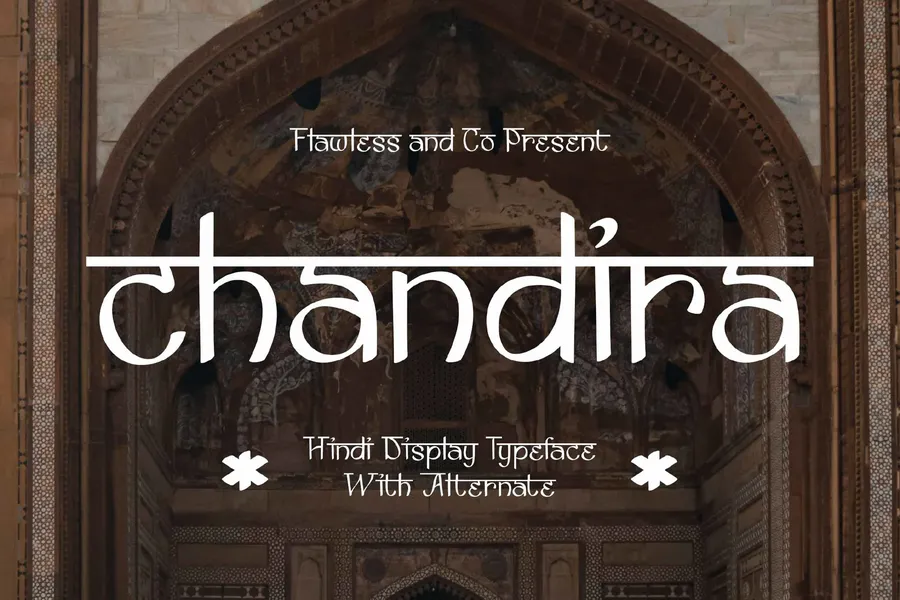
Chandira – Hindi Display Font Chandira is a Hindi-Inspired Display Font evoking the elegance of South Asian script forms, Chandira blends modern typography with the timeless charm of traditional Hindi aesthetics. Its graceful curves and unique alternates mimic the rhythm of ancient calligraphy while remaining crisp and versatile for contemporary design. Chandira is more than just a font — it’s a cultural expression captured in letterforms. Perfect for creative projects that celebrate heritage, storytelling, and visual depth.
Alternates & Ligatures
Who Should Use Chandira? Chandira is made for creatives, brands, and storytellers who want to infuse their designs with cultural richness and artistic elegance. Use Chandira if you are:
A designer working on projects inspired by Indian or South Asian culture
A brand builder looking to create a strong identity with ethnic or traditional vibes
A publisher creating covers or titles for books, travel guides, or spiritual works
A curator or artist promoting cultural exhibitions, galleries, or installations
A yoga studio or wellness coach in need of branding that reflects mindfulness and heritage
A fashion or craft label that wants a distinctive, ornamental typographic voice
Chandira helps elevate visual storytelling by bringing depth, character, and cultural soul to your type.
A Must-Have Font for Brand and Logo Creators and Designers Chandira offers a unique typographic voice rooted in culture and elegance — perfect for professionals seeking to craft standout identities with artistic and ethnic flair.
Why Choose Chandira for Branding Projects? Chandira blends cultural richness with distinctive design, making it a perfect choice for brand identities that want to stand out with meaning and style. Its Hindi-inspired display form adds character, authenticity, and memorability to any branding work — whether it’s for packaging, logos, or editorial visuals. With alternates to enhance versatility, Chandira helps you tell a deeper story through typography.
Suitable For:
Cultural and heritage branding
Festival posters and editorial titles
Book covers and travel guides
Museum exhibitions or art galleries
Yoga studios or wellness campaigns
Fashion labels with ethnic influences
Decorative packaging and souvenirs